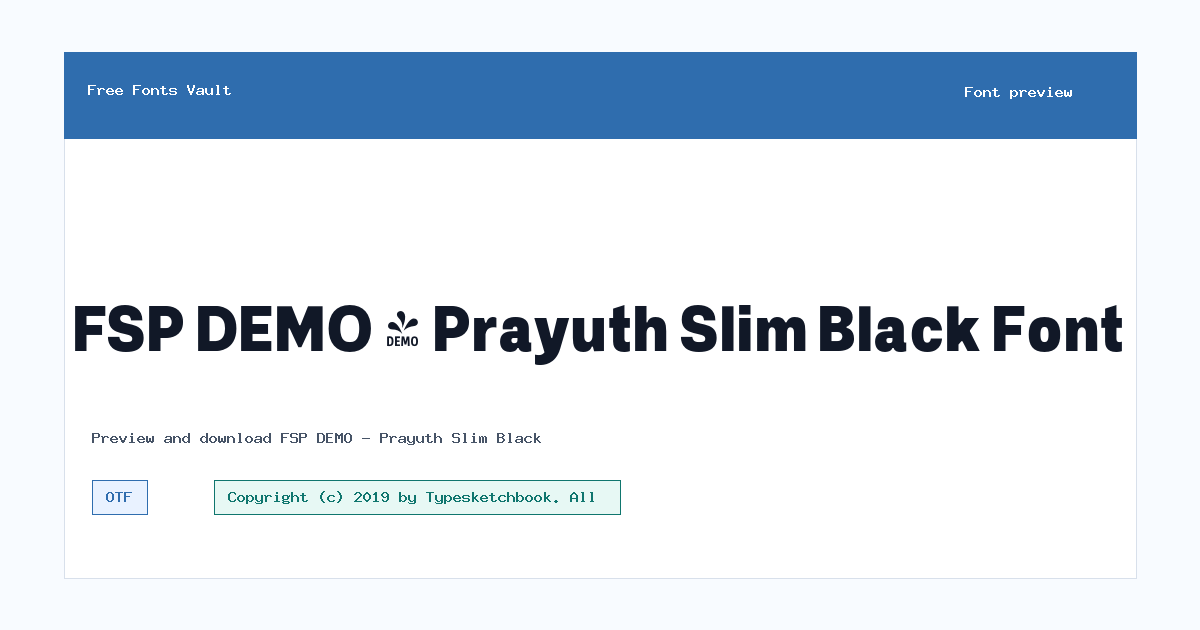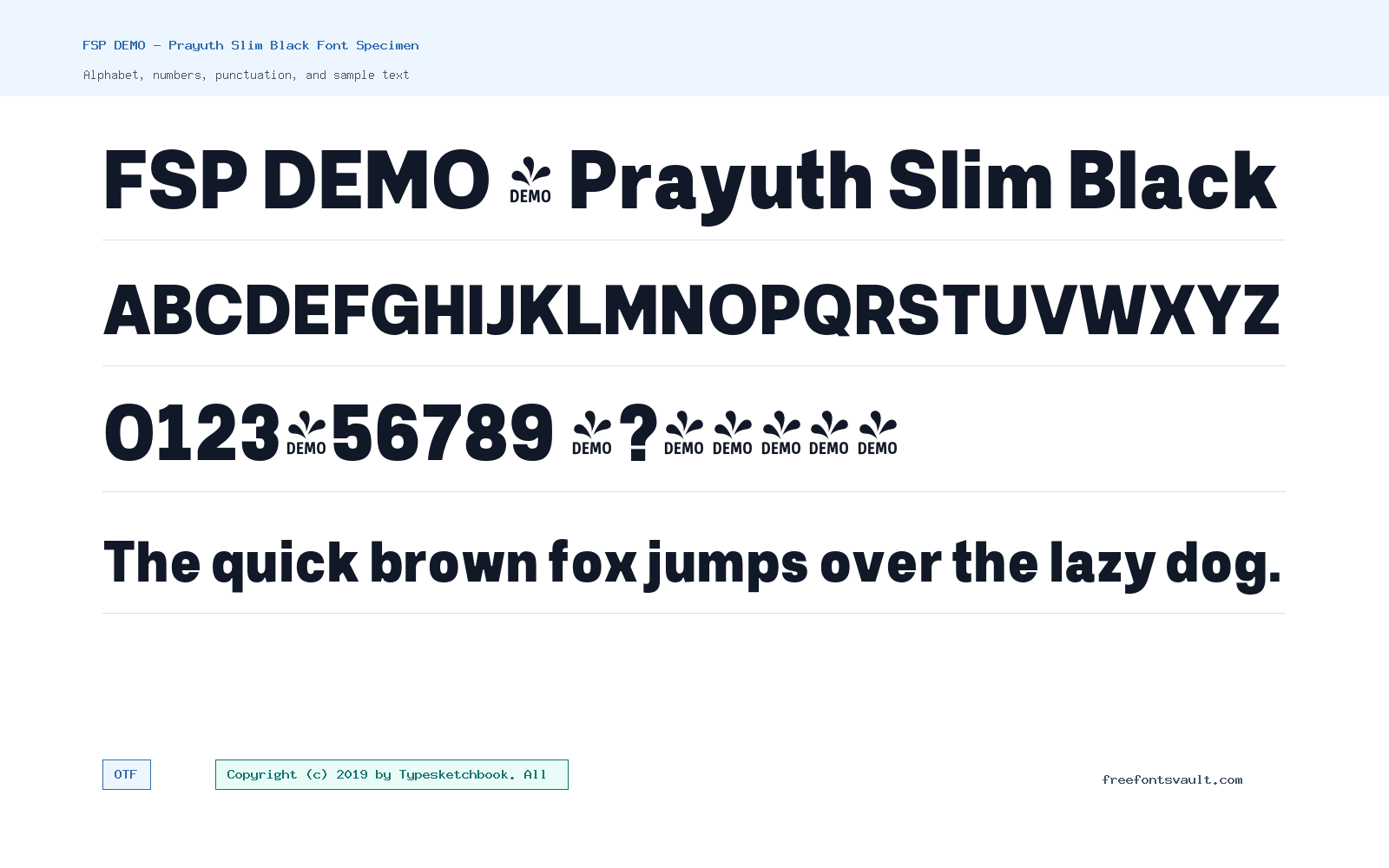
FSP DEMO - Prayuth Slim Black
- Designer Typesketchbook
- Foundry Typesketchbook
FSP DEMO – Prayuth Slim Black font.
FSP DEMO – Prayuth Slim Black is a heavy display font with a slim, condensed build and strong black weight. It is best suited for short text where you want a tall, bold look without using much horizontal space.
About FSP DEMO – Prayuth Slim Black
FSP DEMO – Prayuth Slim Black uses a 900 weight, giving the letters a dense, high-impact appearance. The slim proportions make it useful for titles, posters, headers, and other places where a compact headline needs to stand out. Because the available file is an OTF font, it should work in most common design apps that support OpenType fonts.
Use this font for short words, names, labels, and headline lines rather than long paragraphs. Condensed black fonts can lose comfort at small sizes, so test your own text in the preview and check spacing between letters, especially in all caps. If a design needs body copy, pair it with a simpler sans serif or serif font and keep Prayuth Slim Black for the main display text.
- Condensed slim letter style with a heavy 900 weight
- Tall narrow headline shape that saves horizontal space while keeping strong visual weight
- Poster titles, banners, and bold headline text
- Logos, labels, cover art, and short display phrases
- Private design tests, typographic mood boards, and narrow headline concepts that need a dramatic black weight
FSP DEMO – Prayuth Slim Black is credited to Typesketchbook as the designer and foundry.
What type of font is FSP DEMO – Prayuth Slim Black?
It is a heavy, condensed display font with a 900 weight. It is better for headlines and short text than for long reading passages.
Who designed FSP DEMO – Prayuth Slim Black?
The font is credited to Typesketchbook.